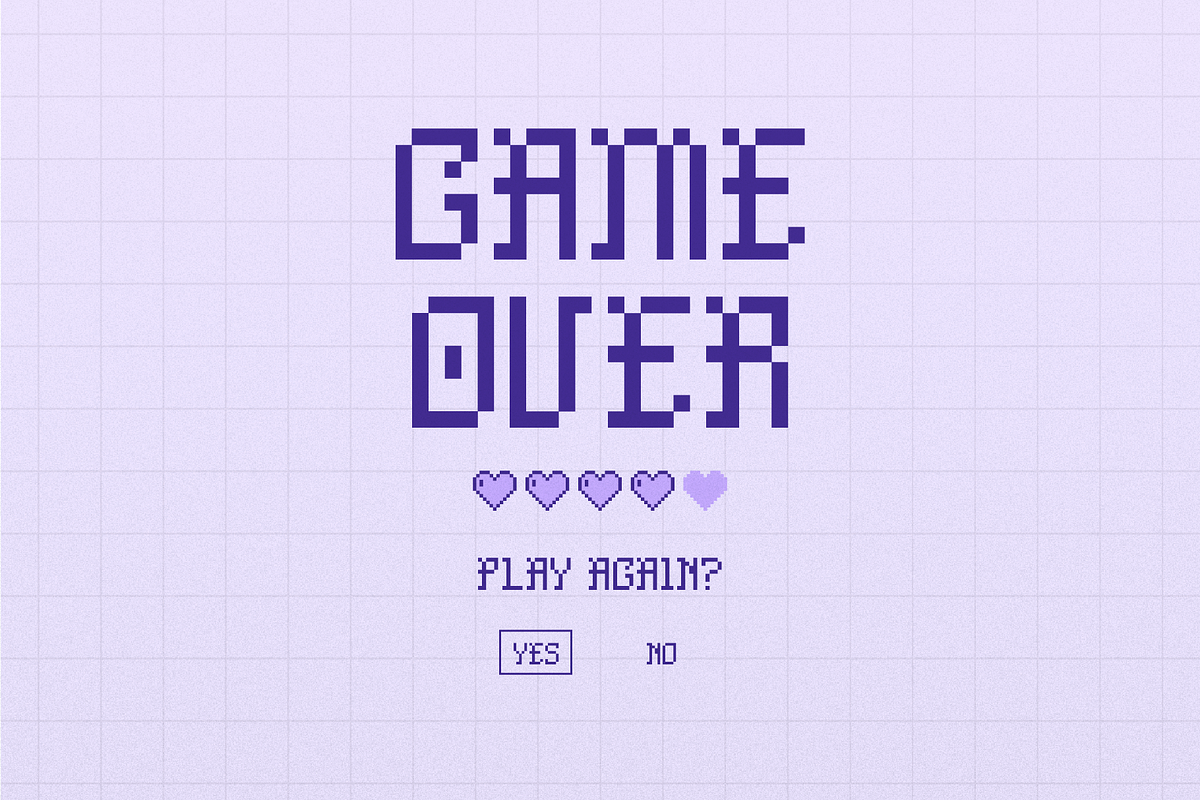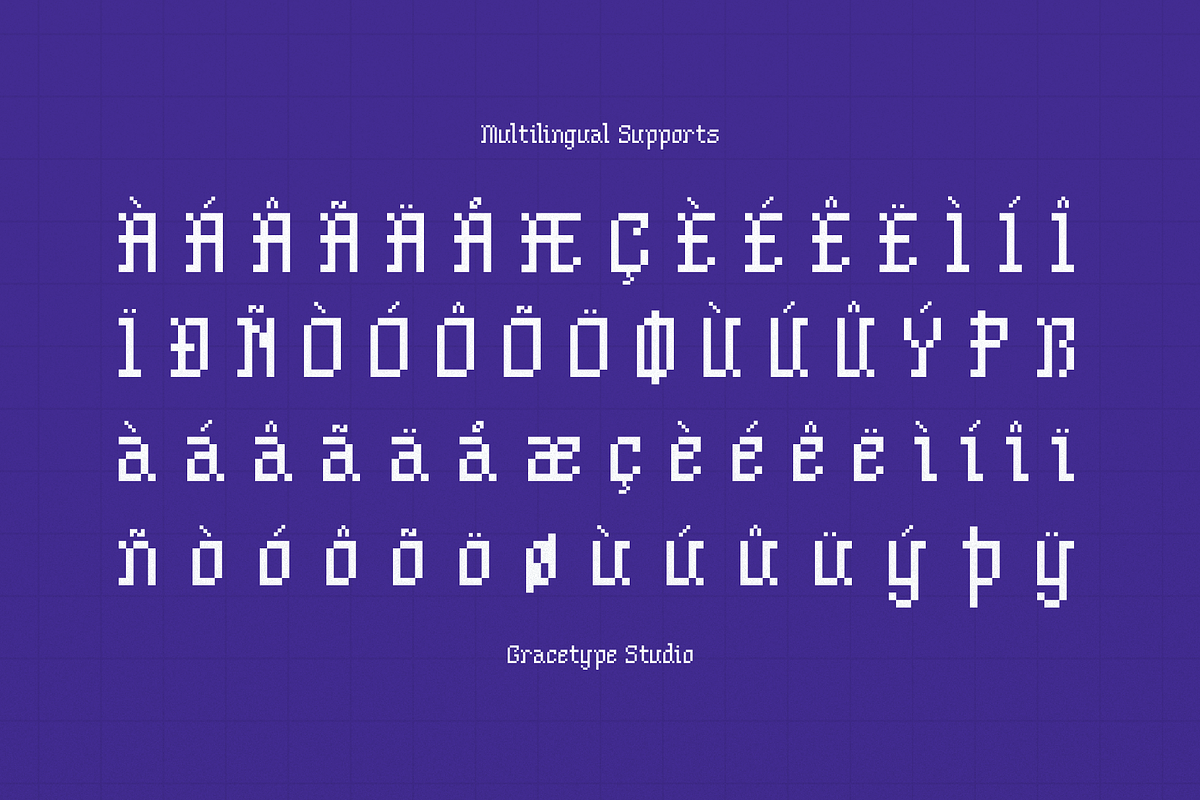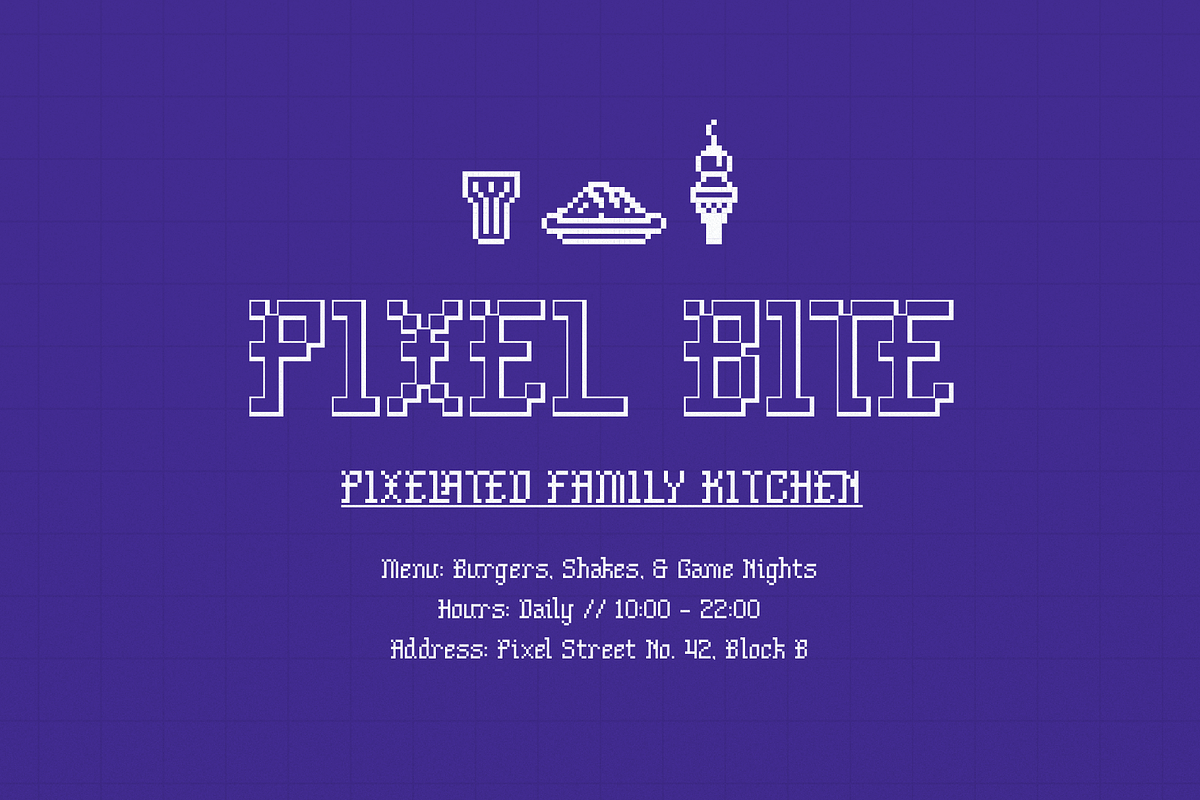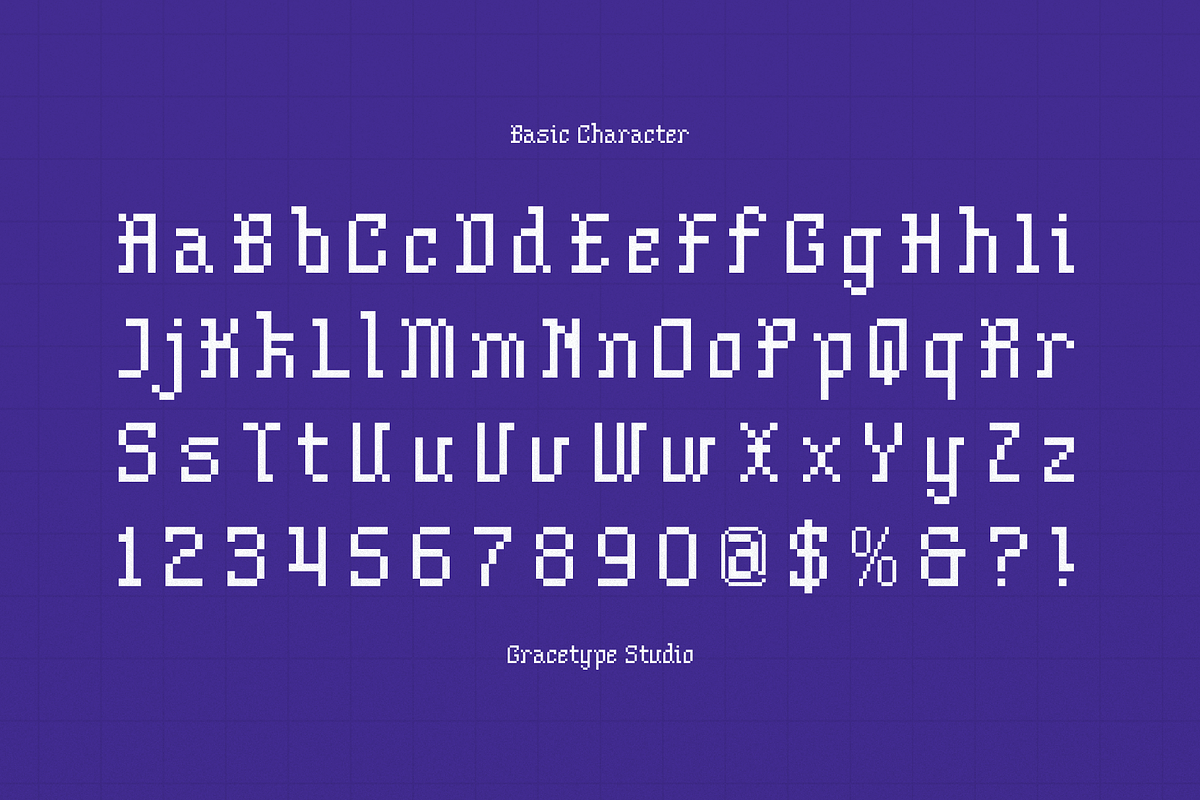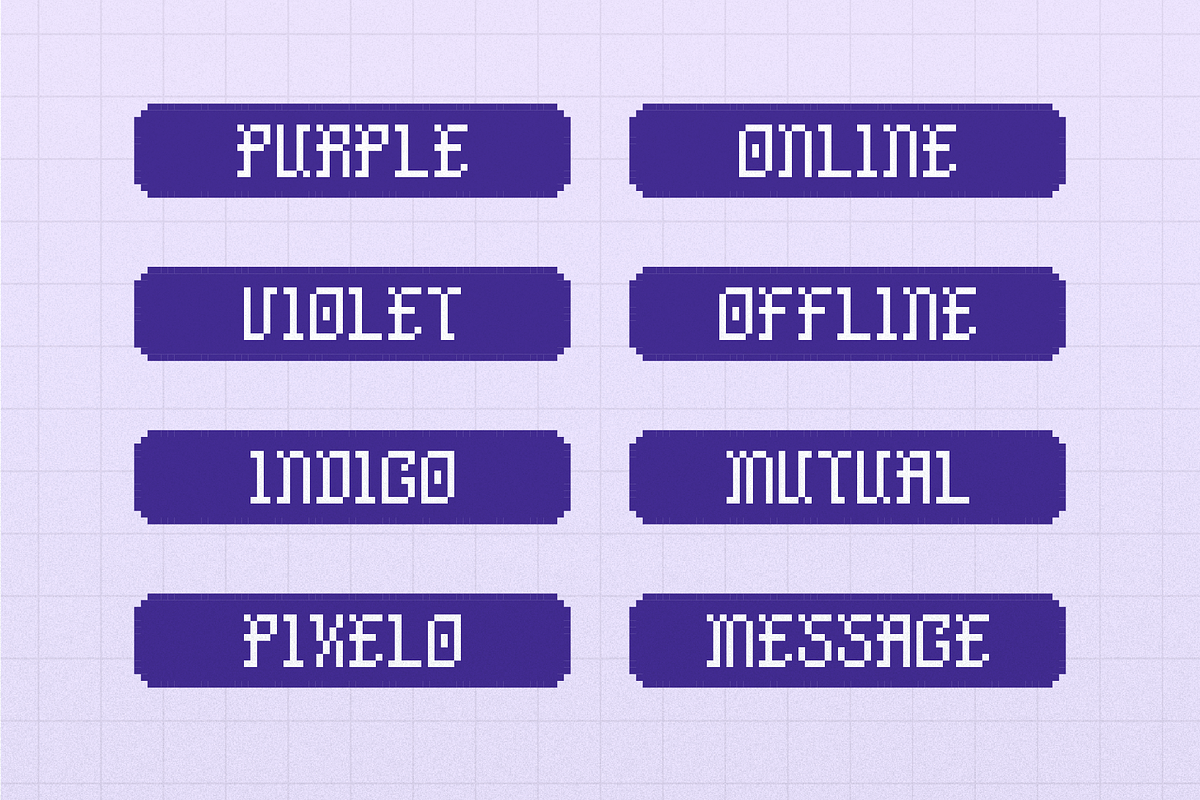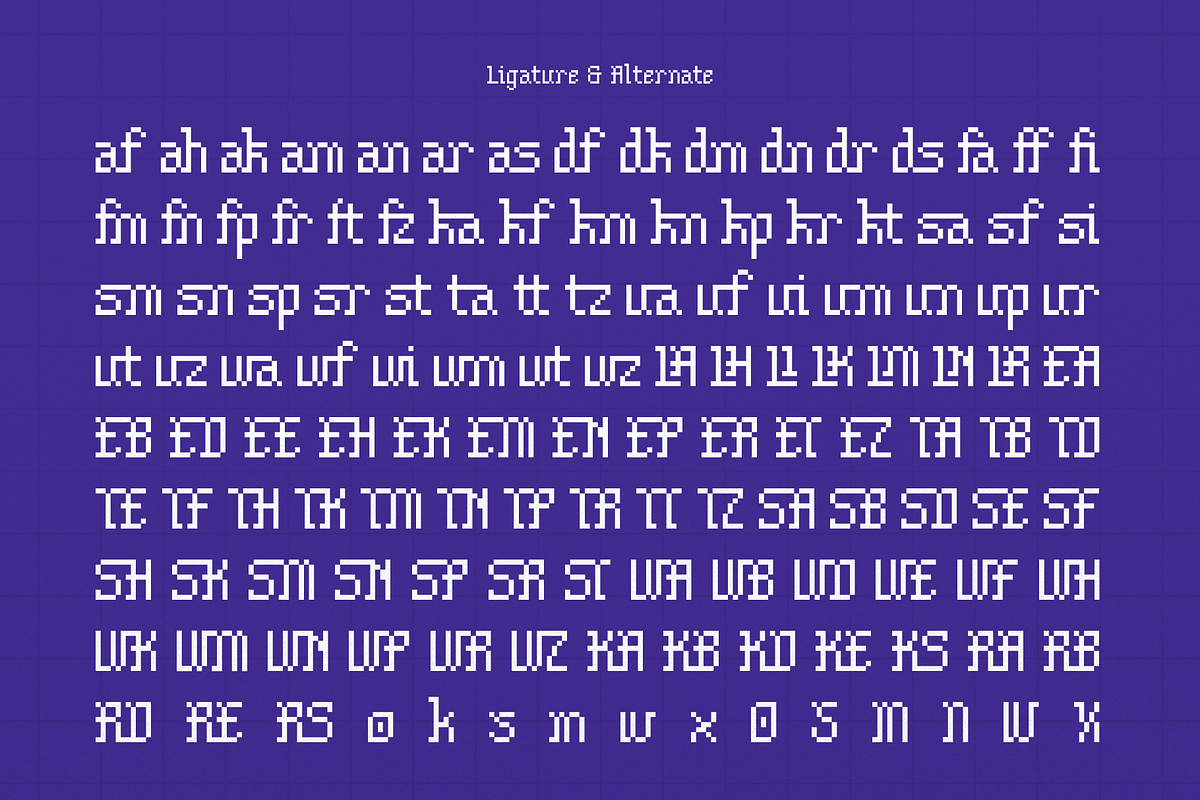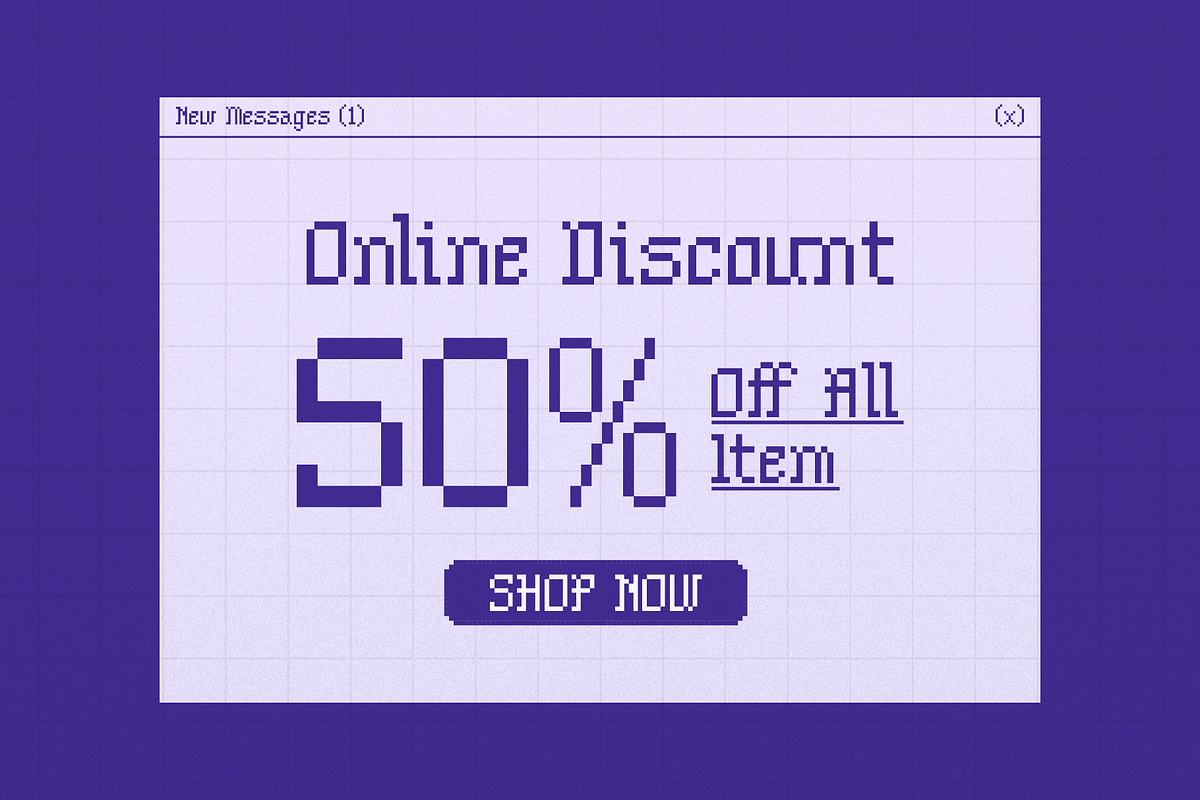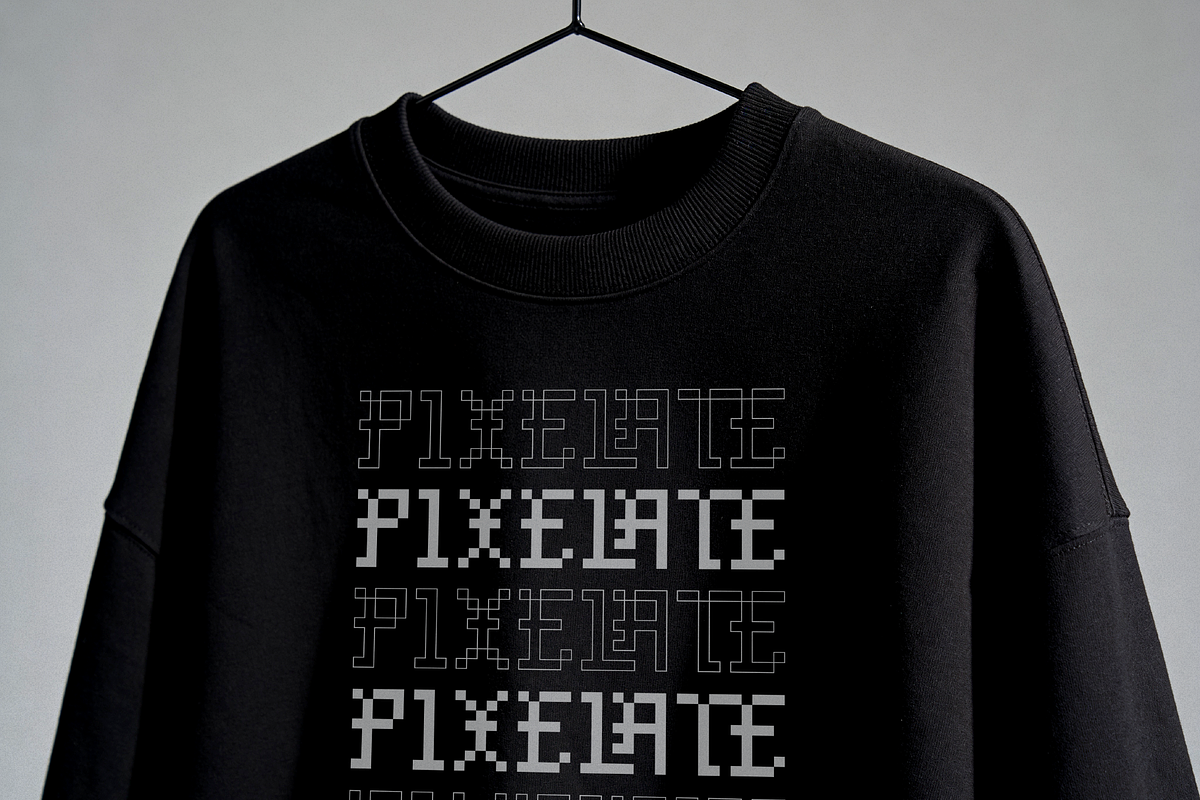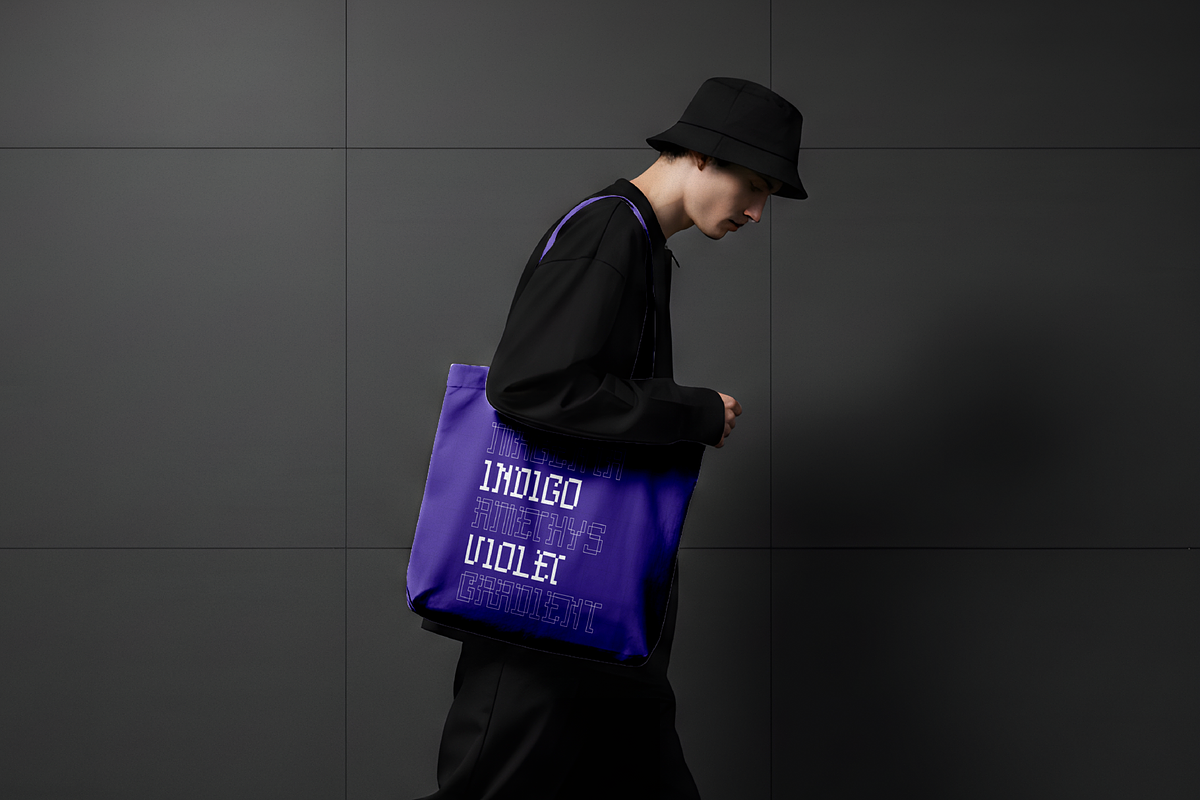
Shiver Glitch | Pixelated Font
Shiver Glitch | Pixelated Font, from Gracetypestudio, suitable for any projects such as: logos, branding projects, homeware designs, product packaging, mugs, quotes, posters, shopping bags, t-shirts, book covers, name card, invitation cards, greeting cards, label, photography, watermark, special events, and all your other lovely projects that need a Pixelated taste.
Alternate and Ligature
Fonts include multilingual support